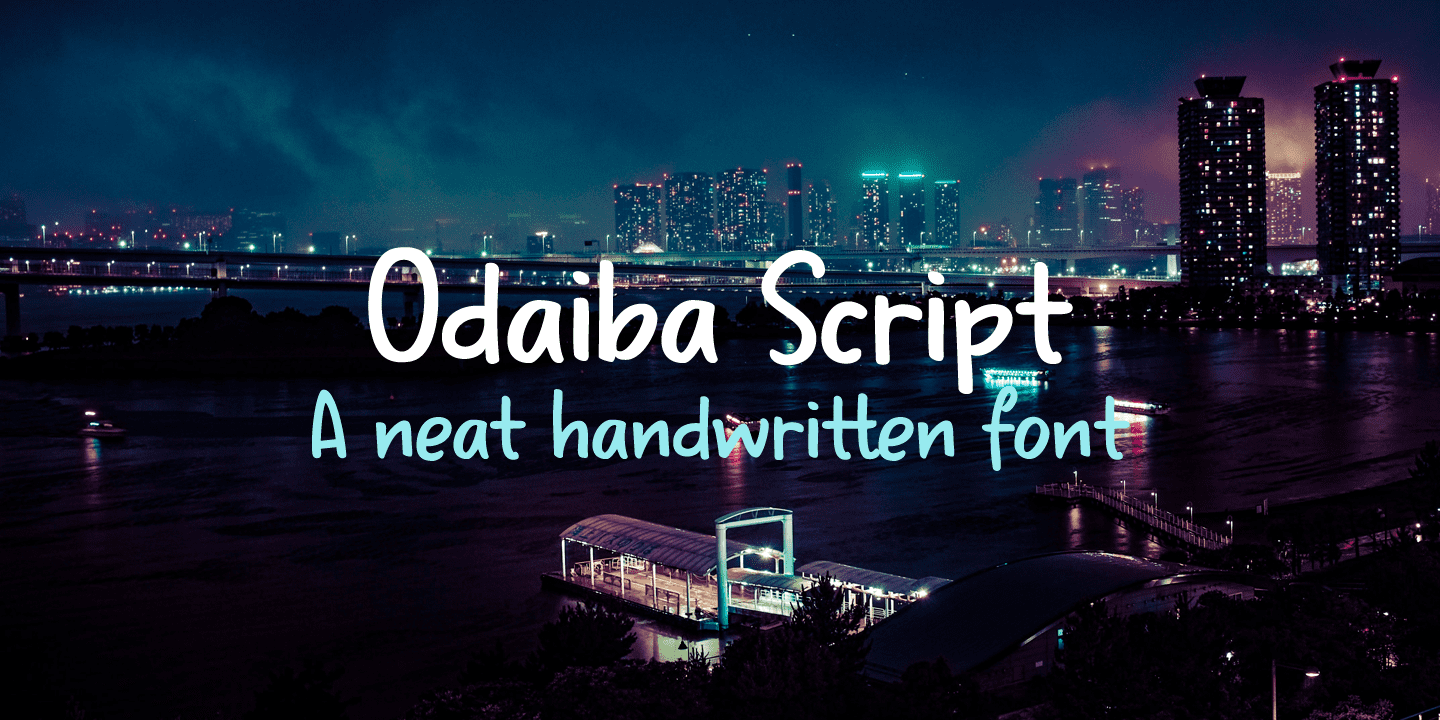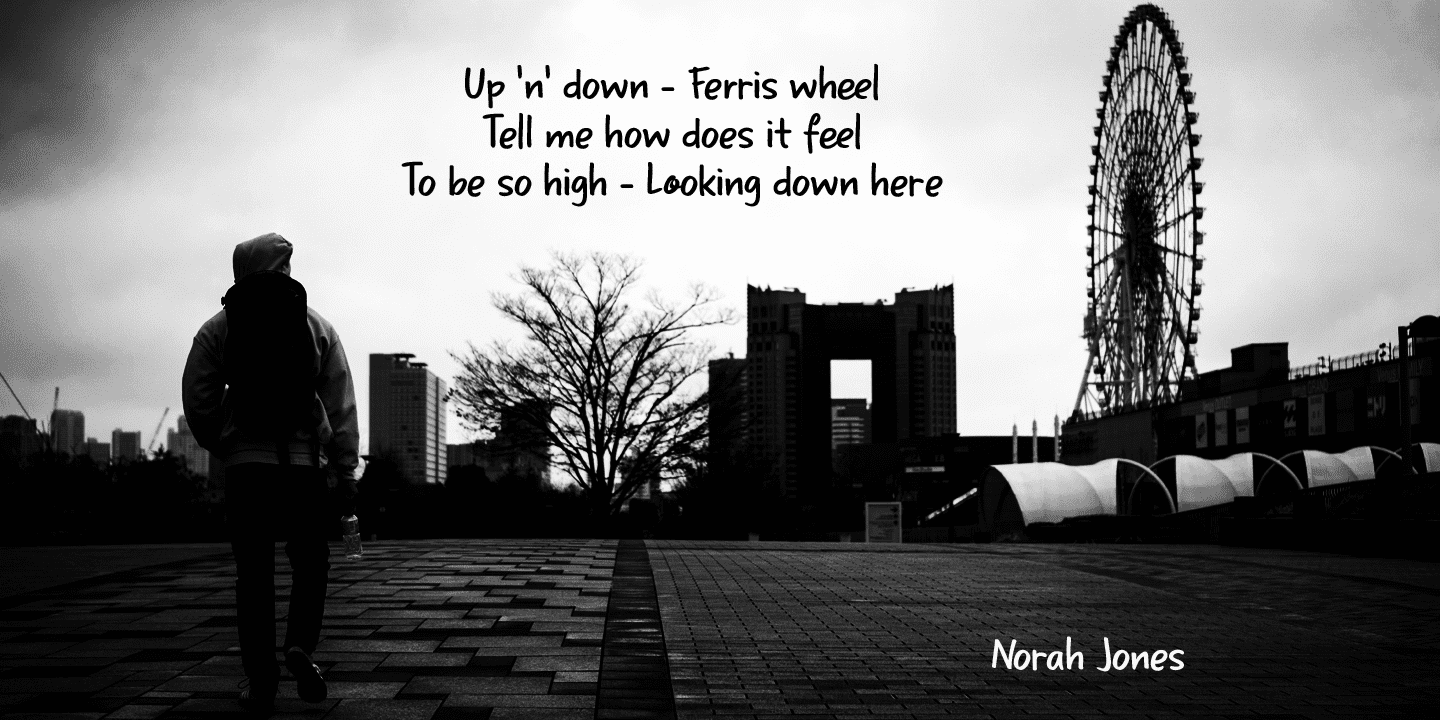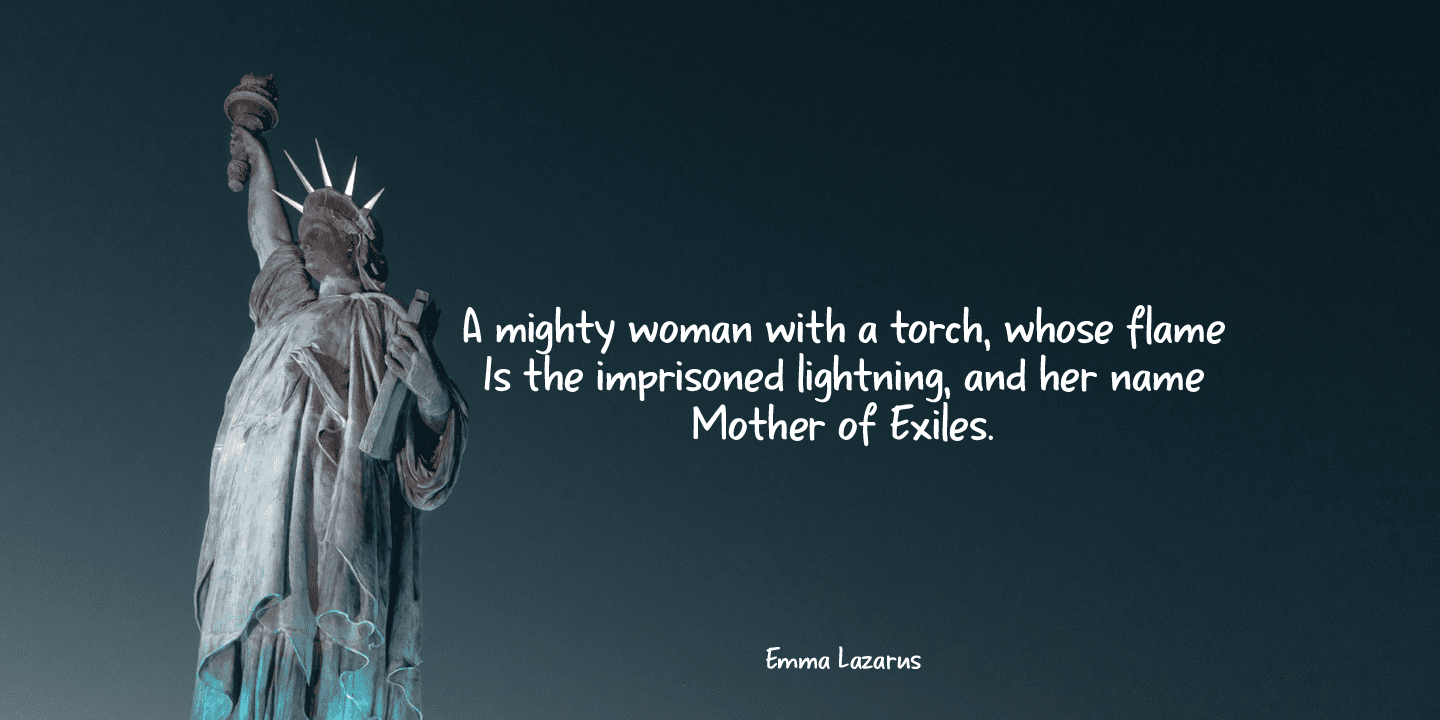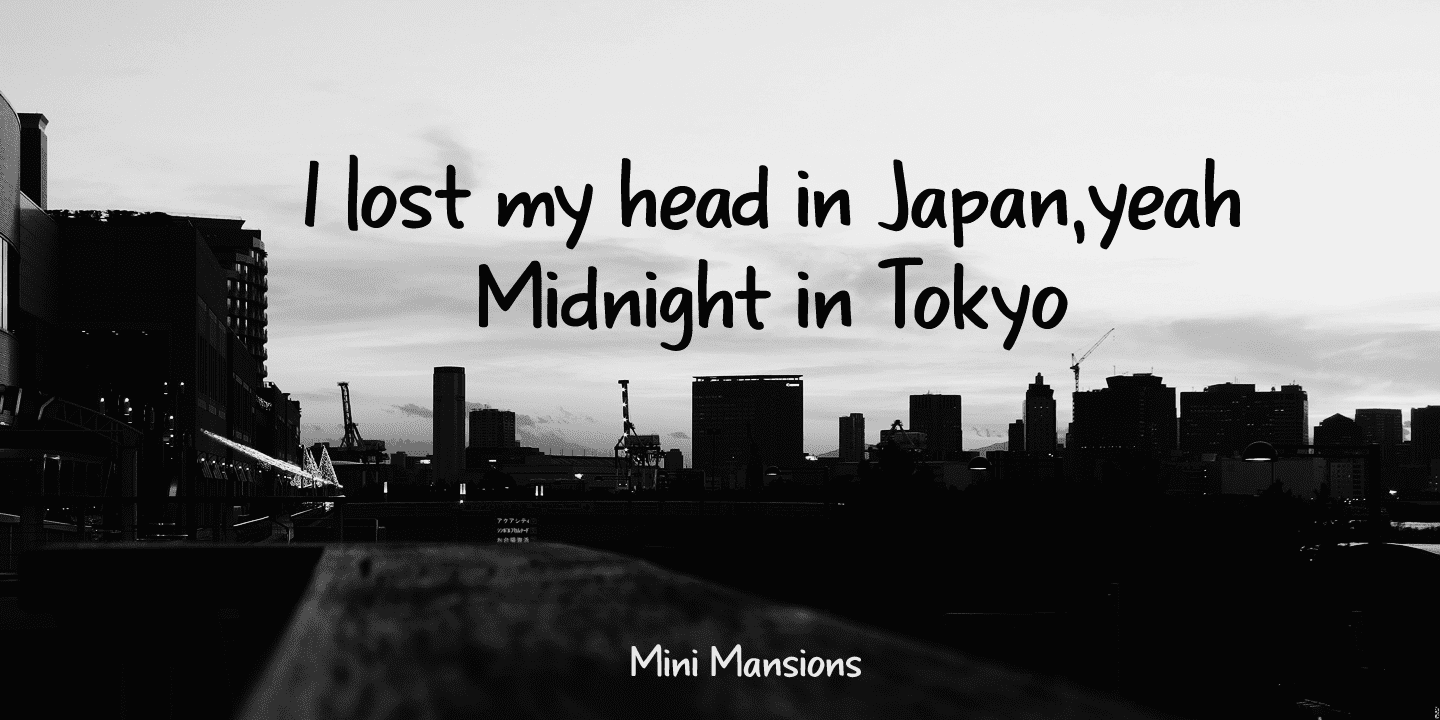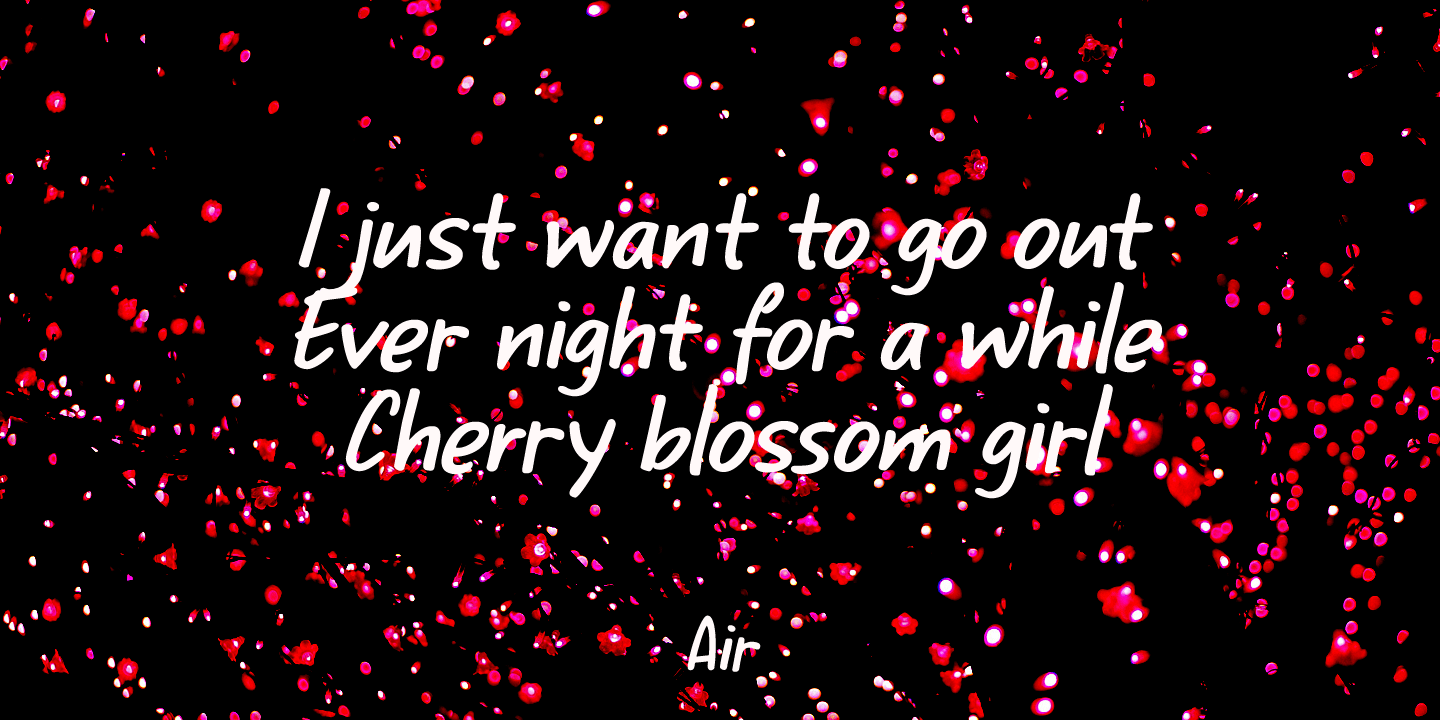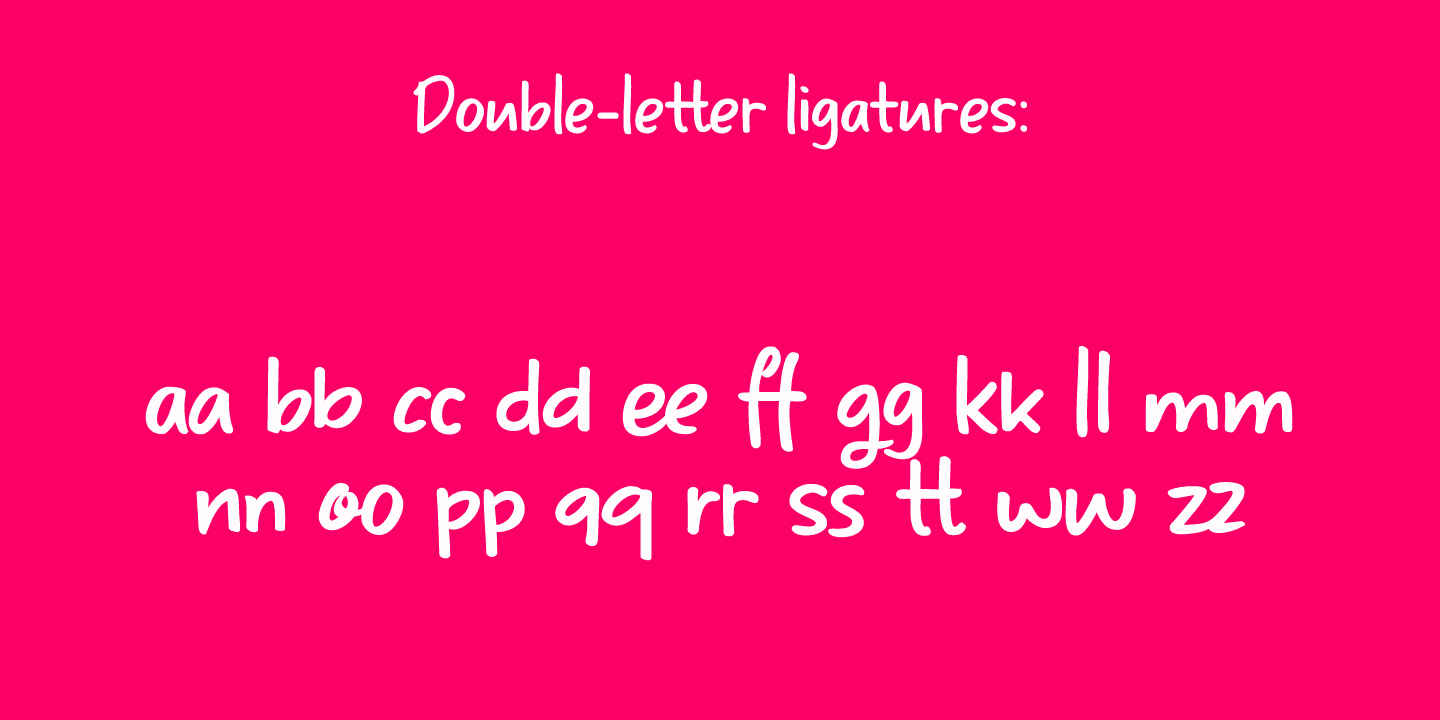
I have been to Japan many times, but I have to admit that I have not (yet) been to Odaiba, so this font is a reminder that I should go there one day.
Odaiba is a large artificial Island in the bay of Tokyo. It is a popular shopping and sightseeing destination and its sights include a copy of the Statue of Liberty and a mega-sized Gundam Robot.
Odaiba Script is a handwritten font. I used a Sharpie pen on paper, so it is nice and thick. Comes with double letter ligatures and all diacritics.